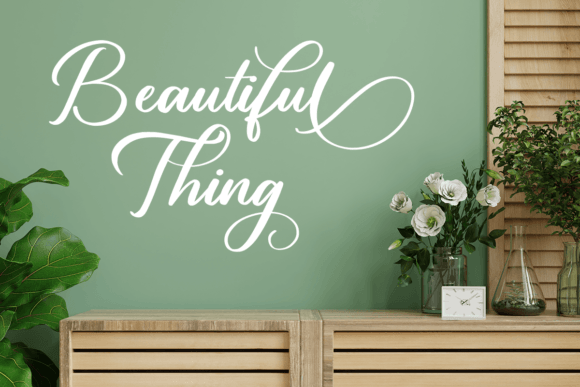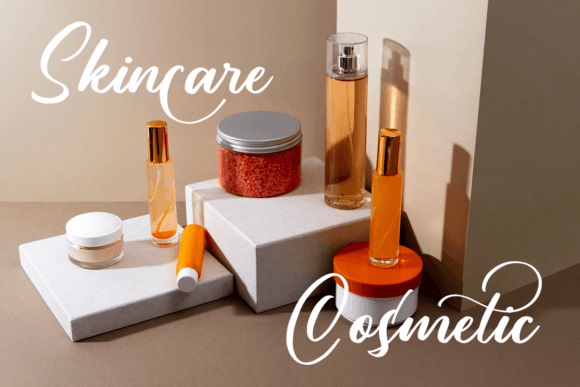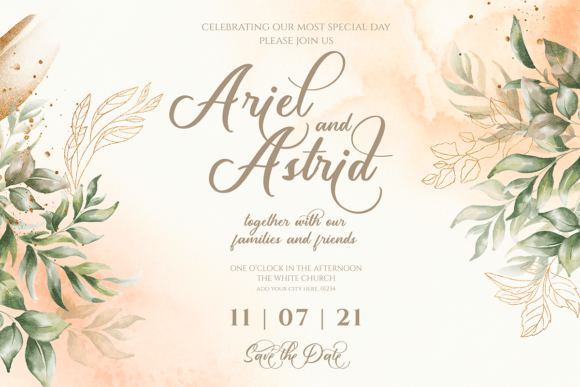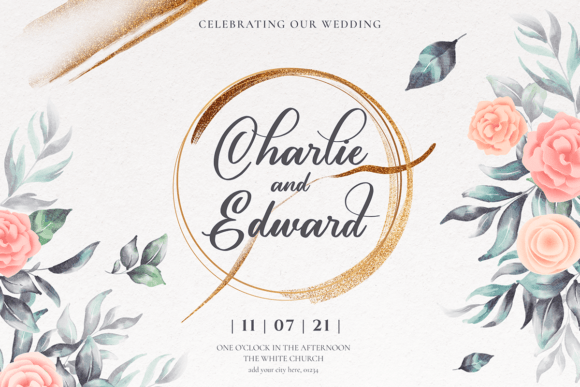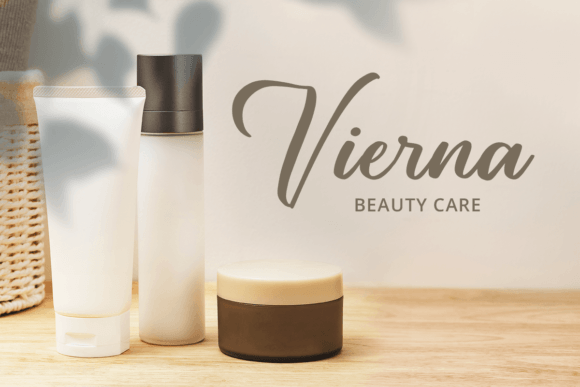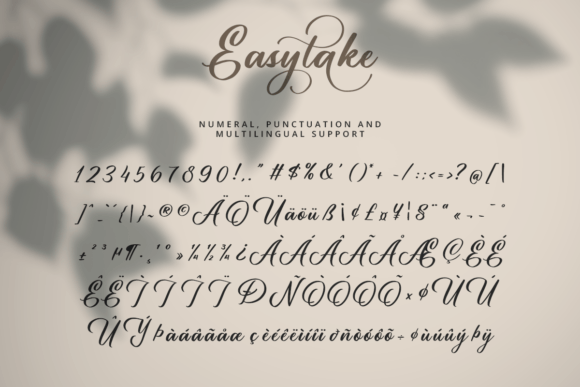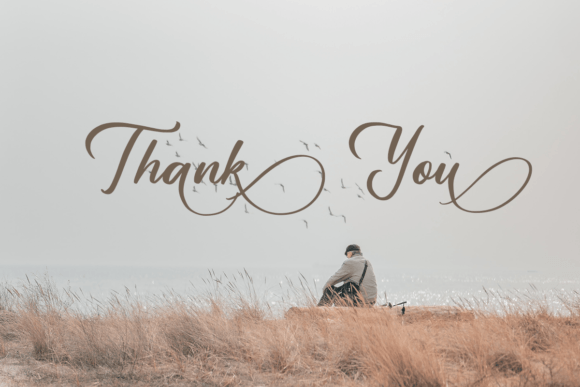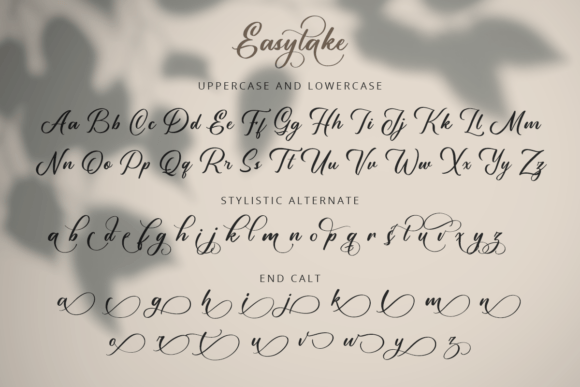
Easytake Font
About Easytake Font
“Easytake” is a beautiful and quirky handwritten font that captures the essence of creativity and charm. Its versatile style makes it a perfect choice for a wide range of design projects, from elegant wedding invitations to eye-catching posters, stylish magazines, cosmetics packaging, trendy t-shirt designs, heartfelt lettering, and warm greeting cards. The font’s playful yet elegant demeanor adds a touch of personality to any creative endeavor, making it a valuable asset for designers and enthusiasts alike.
The font’s versatility shines through its ability to adapt seamlessly to different design contexts. Whether you’re aiming for a sophisticated and polished look or a more casual and playful vibe, “Easytake” can be tailored to suit your specific needs. Its quirky handwritten style conveys a sense of authenticity and creativity, making your designs visually engaging and unique.
One of the standout features of “Easytake” is its PUA encoding, which grants you easy access to all glyphs and swashes. This feature enhances your creative freedom, allowing you to customize your designs with a variety of decorative elements. Whether you want to add stylish swashes, playful glyphs, or artistic flourishes, the font’s versatility empowers you to craft personalized and eye-catching designs effortlessly.
The font’s handwritten charm adds a human touch to your projects, making them more relatable and appealing to your audience. Its unique character gives your designs a distinctive edge, ensuring that they leave a lasting impression. Whether you’re designing for print or digital media, “Easytake” stands out as a versatile and visually appealing choice, enhancing the overall aesthetics of your creations.
Embrace the creative possibilities that “Easytake” offers. Let its beauty and quirkiness inspire your designs, allowing you to bring your artistic vision to life with style and flair. With its playful elegance and accessibility, this font becomes your go-to tool for crafting stunning and expressive designs that capture the hearts of those who see them.